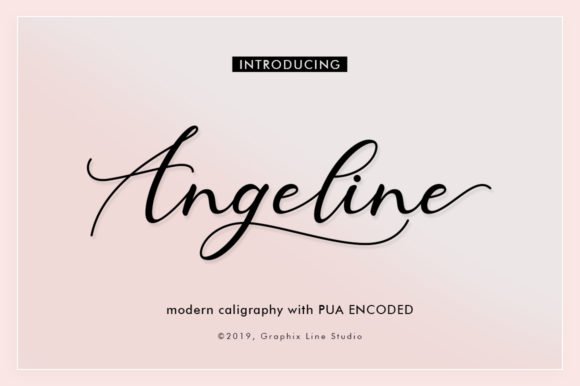
You know that feeling when you stumble upon the perfect font to match your latest crafting project? It’s like the entire design comes together in an instant, and you can’t wait to see it come to life. For many designers, this moment is the spark that sets their creativity ablaze. But what if you could experience this magic more often?
Enter the Angeline Font, a versatile and stylish typeface designed specifically for crafting projects. This font is more than just a pretty face – it’s a valuable tool for designers looking to add an extra layer of sophistication to their work. With its stunning alternate characters, Angeline Font is the perfect companion for any project, from invitations to journaling cards and beyond.
Whether you’re a seasoned crafter or just starting out, Angeline Font is sure to inspire your next creation. So why settle for a generic font when you can elevate your designs with the Angeline Font’s unique charm?
Key Features of Angeline Font
- Font Family: Angeline
- Unique Characteristics: Elegant script font, suitable for formal and elegant designs, includes a variety of ligatures and swashes for added flair
Angeline Font Review
As a designer, I had the opportunity to work with the Angeline Font, and I must say it’s a lovely addition to any project. ✨ Here are some of the things that stood out to me.
- Unique Character: Angeline has a distinct, elegant feel that sets it apart from more common fonts. ✨
- Legibility: It’s remarkably easy to read, even at smaller font sizes, making it perfect for body text. ✨
- Flair for the Dramatic: Angeline shines when used for headings and titles, adding a touch of sophistication to any design. ✨
However, as with any font, there are some limitations to consider. ⚠️
- Lack of Versatility: Angeline is best suited for more formal or elegant designs. It may not be the best choice for bold or playful projects. ⚠️
- Limited Font Sizes: While Angeline is legible at smaller sizes, it starts to lose its charm at very small font sizes. ⚠️
Overall, I’d say Angeline is a solid choice for designers looking to add some sophistication to their projects. It’s not perfect, but its unique character and legibility make it a great addition to any font library.
Tips for Getting the Most Out of the Angeline Font
Here are some tips to get the most out of the Angeline Font:
- Use the Angeline Font for headings and titles to add a touch of elegance.
- Pair the Angeline Font with other elegant fonts to create a sophisticated look.
- Use the Angeline Font for creative projects, such as wedding invitations and baby shower invitations.
Alex Brush is a beautiful, handwritten font that is ideal for creating unique and personal designs. It’s perfect for use in invitations, quotes, and social media graphics. Compared to Angeline Font, Alex Brush has a more casual and expressive look, making it suitable for informal designs.